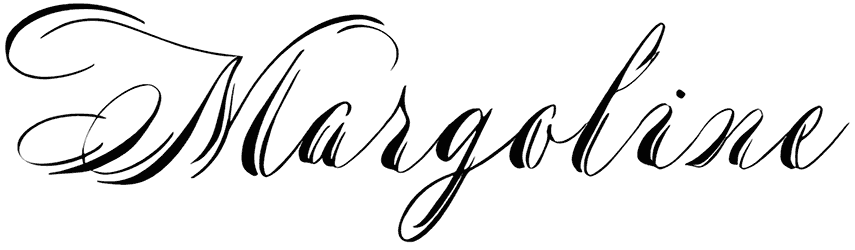
Margoline Font
This is what can be called luxury, Margoline. As a calligraphy font, it has a unique design with interrupted winding lines while maintaining its classic vibe. This chic font will beautifully be harmonized with a lot of projects such as logotypes, invitation cards, fashion-related designs, and sundries. Mingle Margoline with your creativity and be pleasure the results.